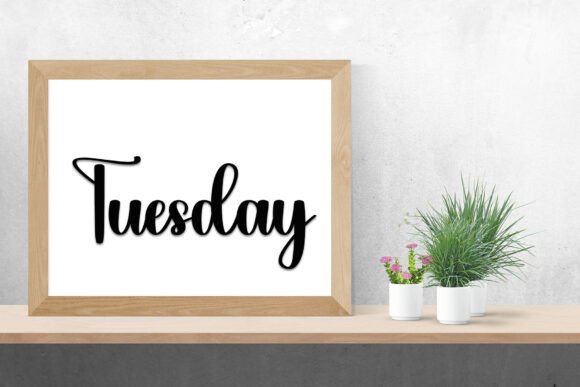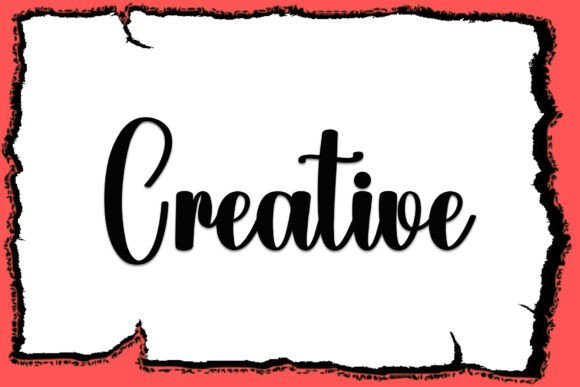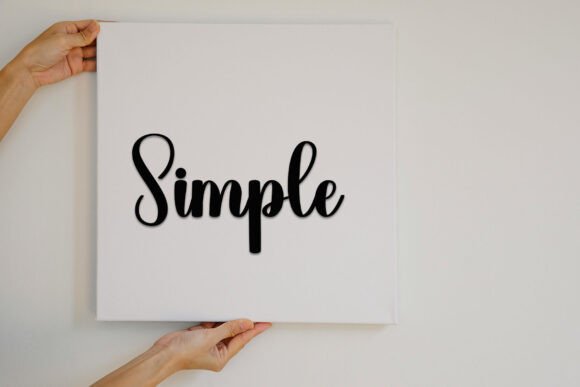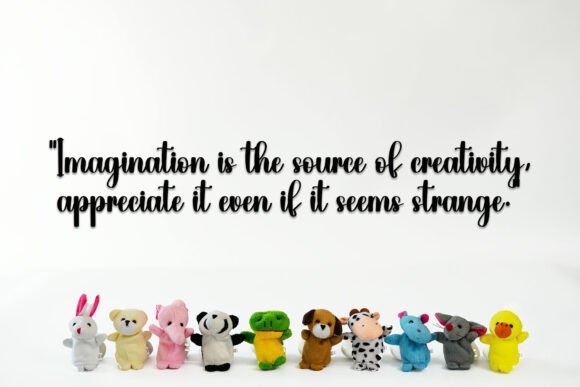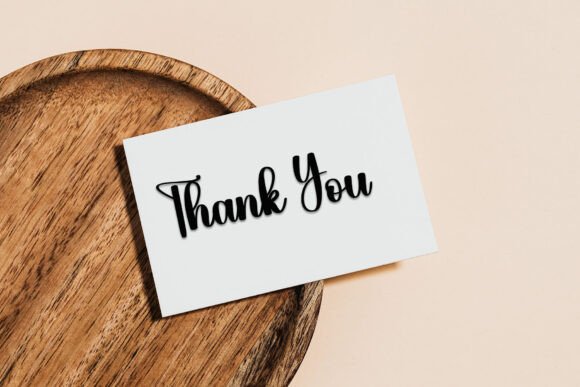
Biscuits Font: The Perfect Holiday Typeface for Your Designs
The holiday season is upon us, and what better way to get into the spirit than with a festive and happy typeface? Look no further than the Biscuits Font, a decorative font that captures the essence of the holiday season with its unique flair and charm. In this article, we’ll dive into the world of Biscuits Font, exploring its features, uses, and benefits for designers and crafters.
A Festive and Happy Typeface
Biscuits Font is a one-of-a-kind typeface that embodies the joy and cheer of the holiday season. Its decorative elements and unique design make it perfect for adding a touch of whimsy and charm to your designs. Whether you’re creating greeting cards, gift labels, or holiday-themed projects, Biscuits Font is sure to bring a smile to your face and a touch of nostalgia to your words.
So, what makes Biscuits Font so special? For starters, its festive and happy design makes it perfect for a wide range of holiday projects. Imagine creating greeting cards that stand out from the crowd, gift labels that add a personal touch, or holiday-themed projects that transport your audience to a winter wonderland. With Biscuits Font, the possibilities are endless!
One of the best things about Biscuits Font is that it’s PUA (Private Use Area) coded. But what does that mean, exactly? In simple terms, PUA coding allows you to access all the amazing glyphs and ligatures easily, without any hassle. This means you can unlock the full potential of Biscuits Font and take your designs to the next level.
So, what can you expect from Biscuits Font? Here are just a few of its key features and benefits:
- Festive and happy design: Perfect for holiday projects and designs
- Decorative elements: Adds a touch of charm and whimsy to your designs
- PUA coded: Easy access to glyphs and ligatures
- Unique flair: Stands out from the crowd and adds a personal touch
- Nostalgic atmosphere: Evokes feelings of warmth and nostalgia
Uses for Designers and Crafters
Biscuits Font is perfect for a wide range of designers and crafters, including:
- Graphic designers: Looking for a unique and festive typeface for holiday projects
- Crafters: Creating handmade holiday cards, gift tags, and decorations
- Paper crafters: Looking for a special font to add to their holiday projects
- Digital artists: Seeking a font that adds a touch of whimsy and charm to their designs
Here are a few tips and tricks for getting the most out of Biscuits Font:
- Experiment with different sizes and colors: To add visual interest and emphasis to your designs
- Combine with other fonts: To create a unique and eye-catching look
- Use glyphs and ligatures: To add a touch of personality and whimsy to your designs
- Try it out on different backgrounds: To see how it interacts with different textures and colors